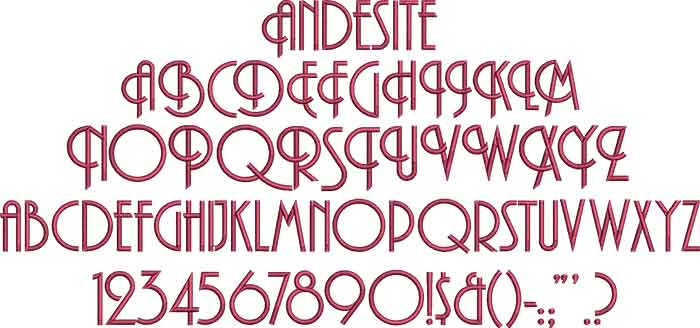
BX Embroidery Font: Andesite
BX Embroidery Font: Andesite Font Bundle (4 sizes) is a sans serif, retro, stylized, condensed machine embroidery font that includes A-Z, a-z, 0-9 and punctuation; 4 sizes.
Andesite is a sans serif, retro, stylized, condensed machine embroidery font that includes A-Z, a-z, 0-9 and the following punctuation: !$&()-:;”‘>,? (75 total characters).